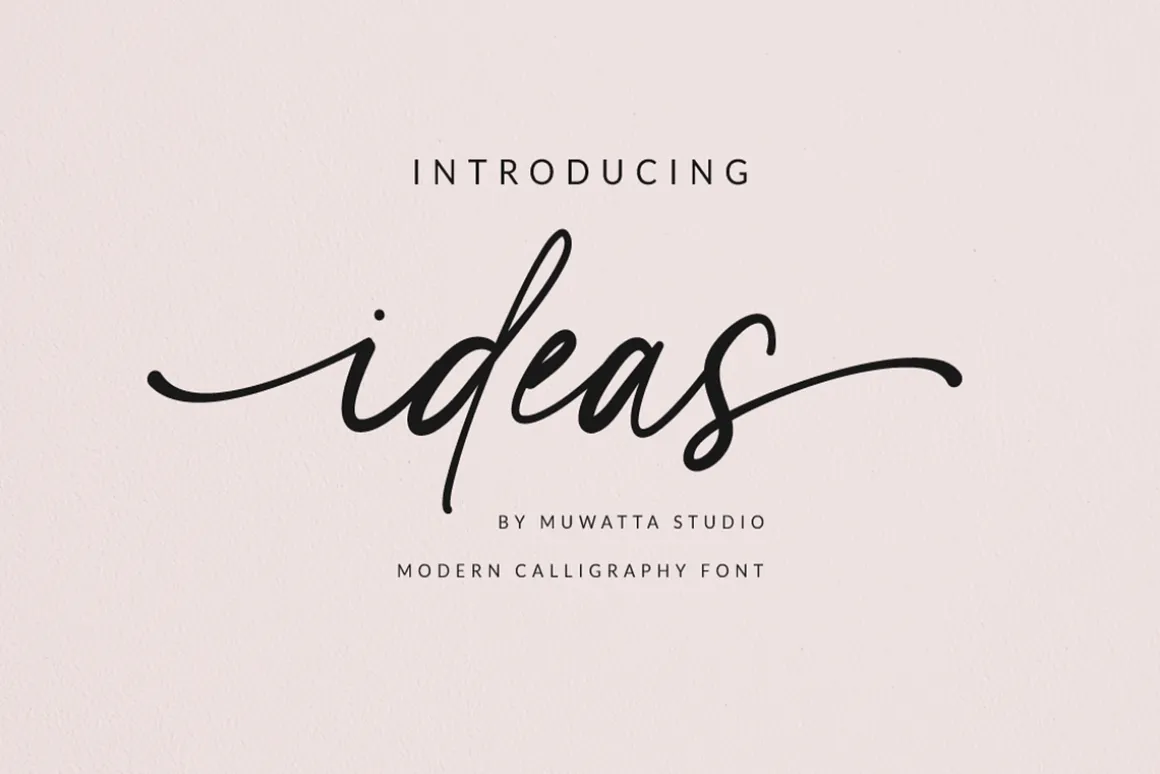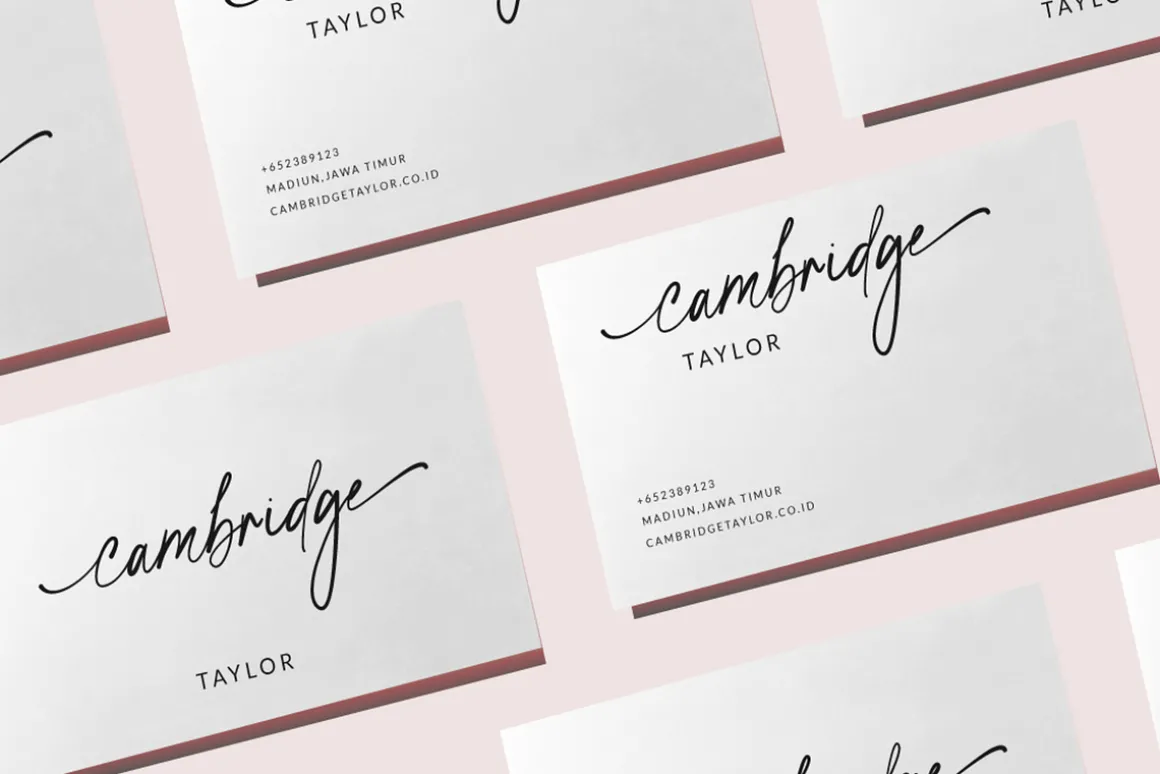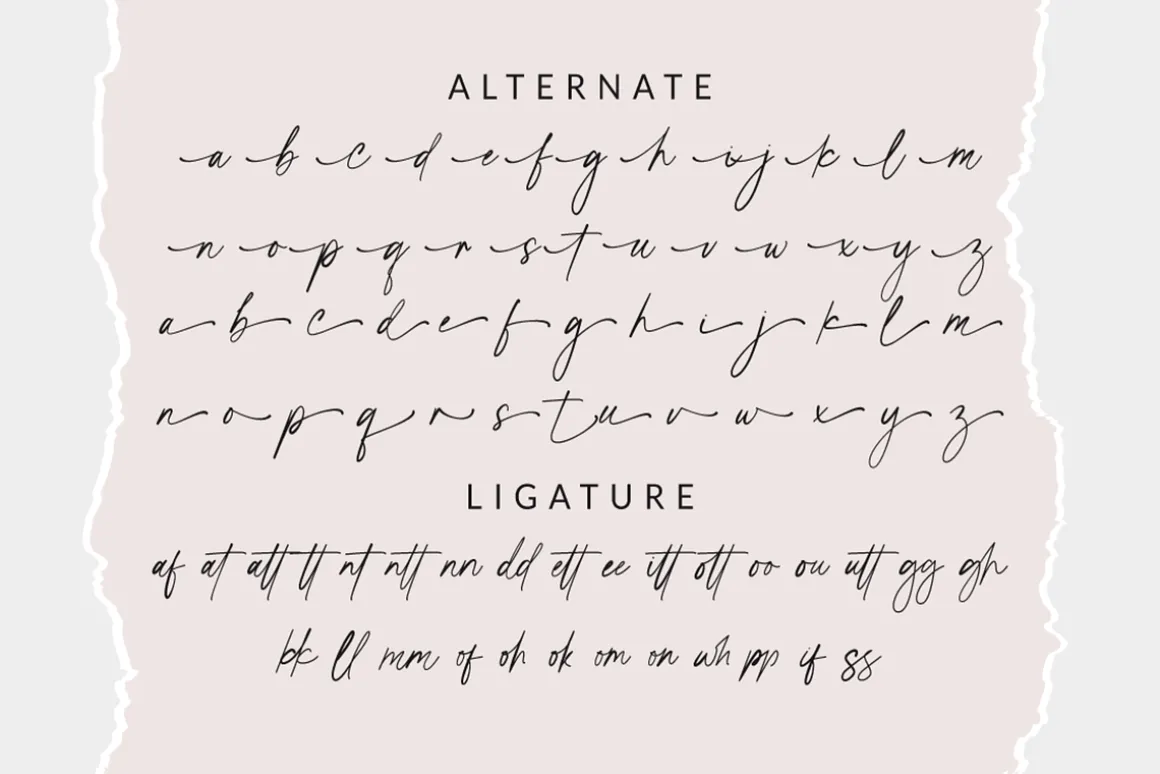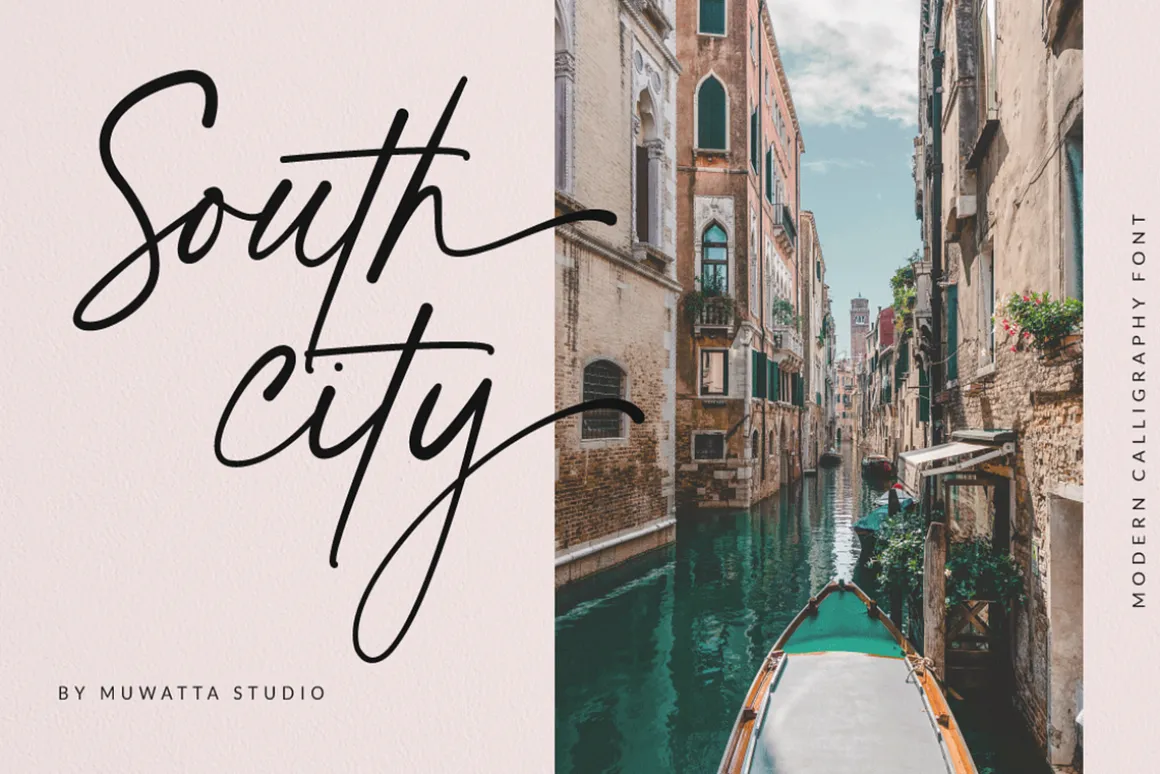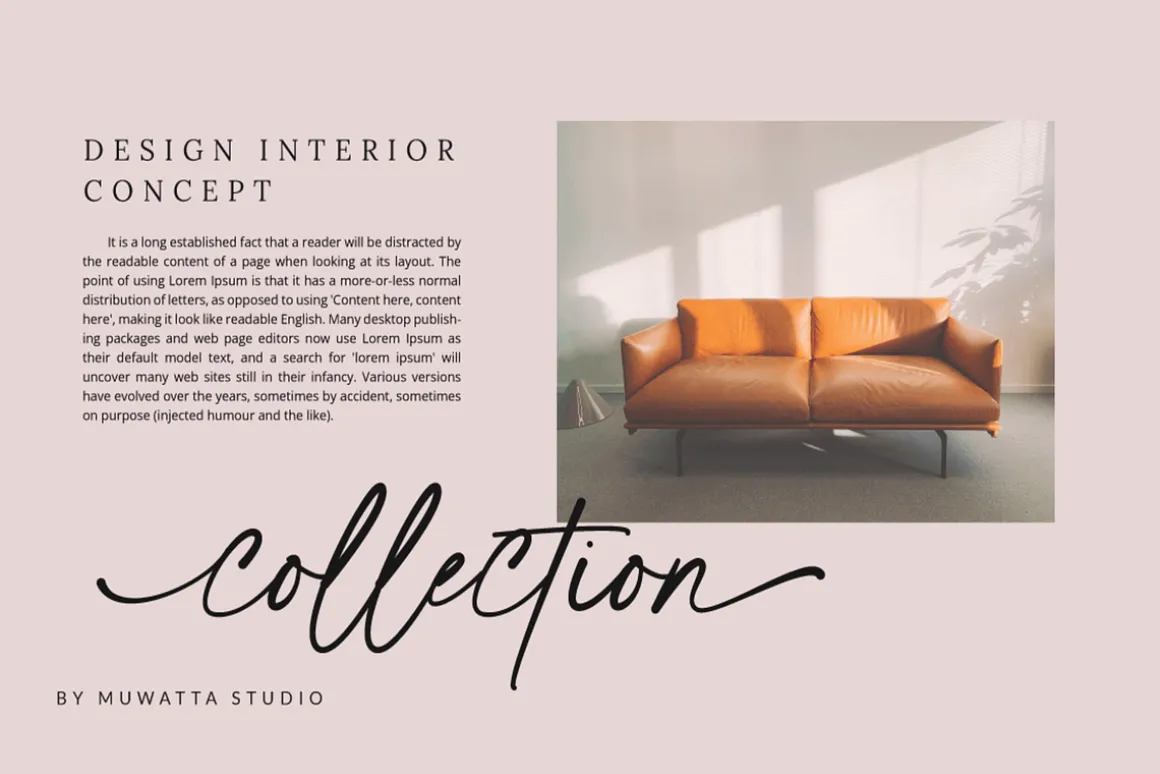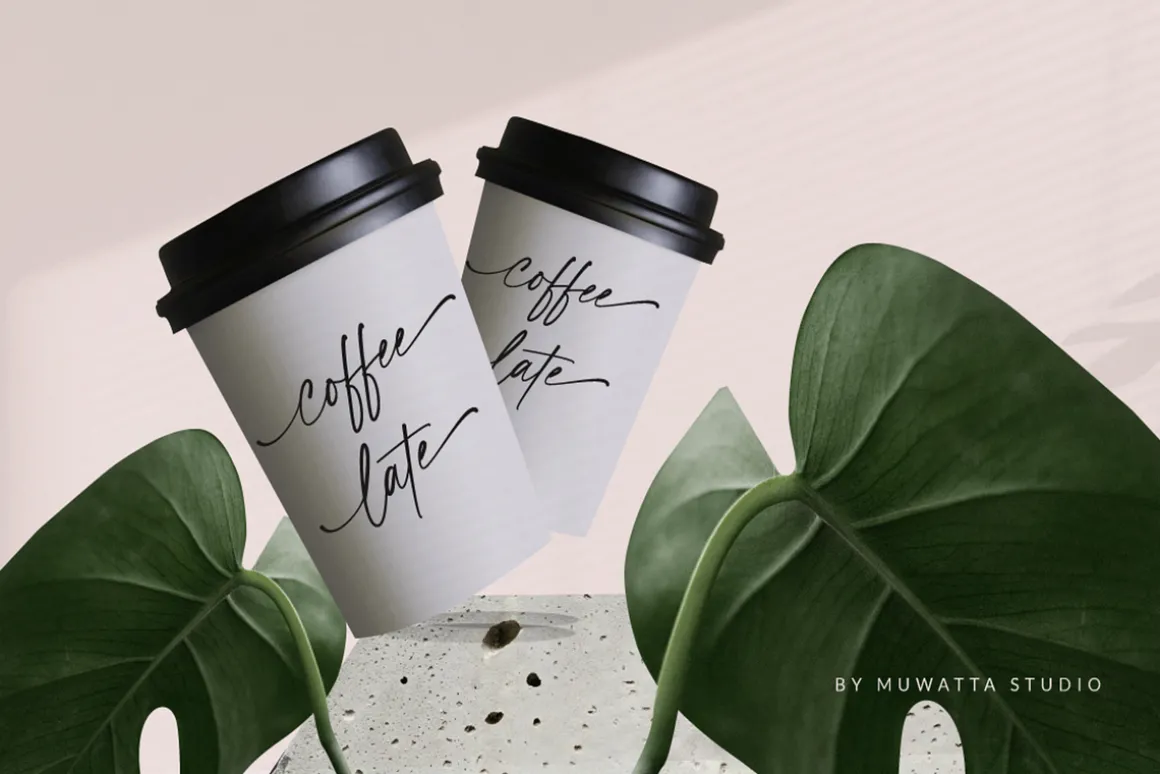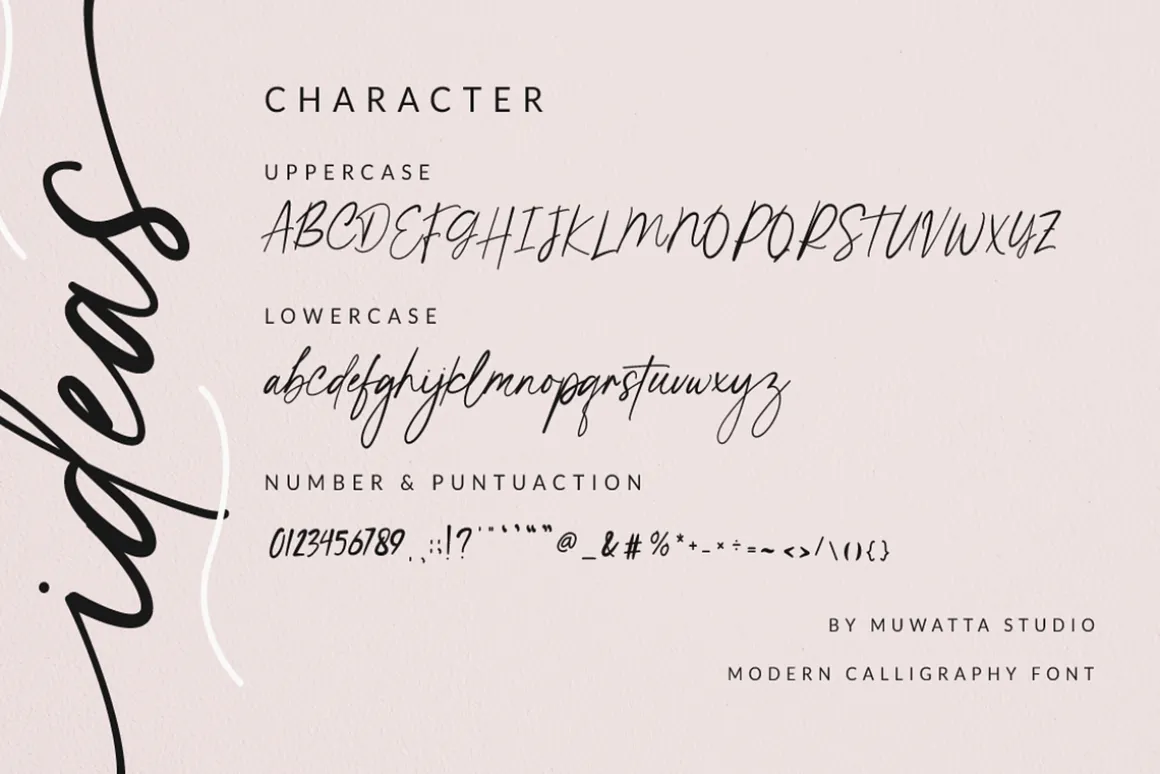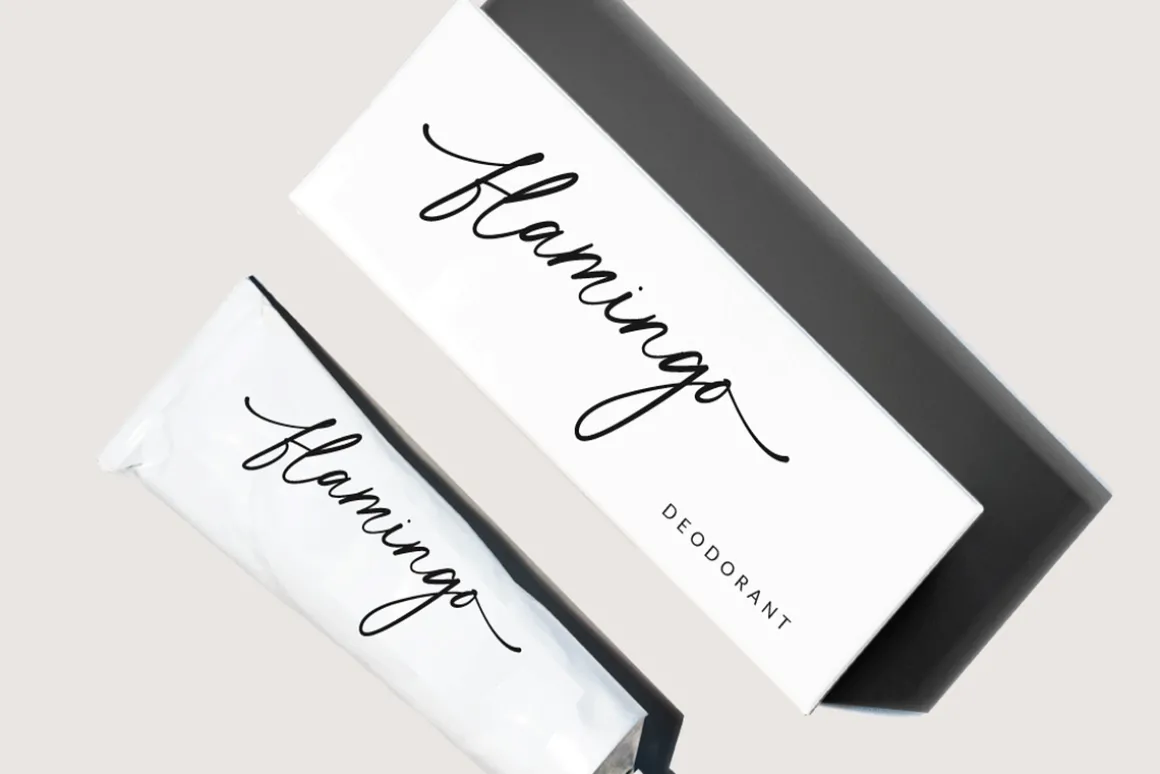
“Ideas” is a sophisticated and modern font designed to elevate the elegance of invitations, wedding themes, and fashion branding. With its refined strokes and fluid curves, it captures a perfect balance between classic calligraphy and contemporary style. This font is ideal for adding a touch of luxury to event stationery, branding materials, and editorial designs. Its versatility makes it suitable for everything from formal wedding invitations to chic fashion lookbooks, giving each project a distinguished and timeless appeal.